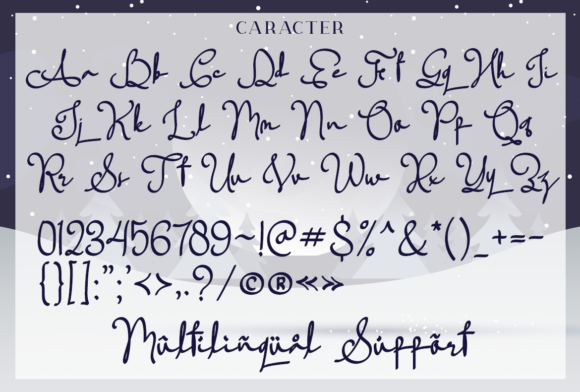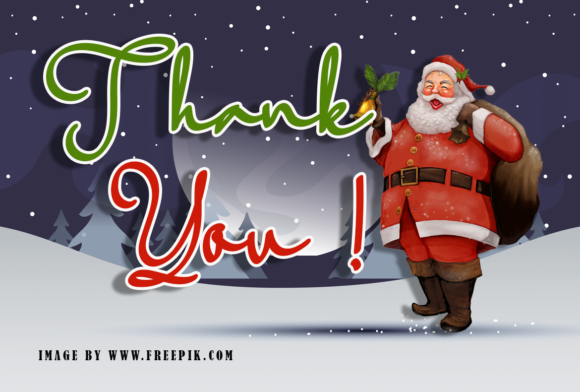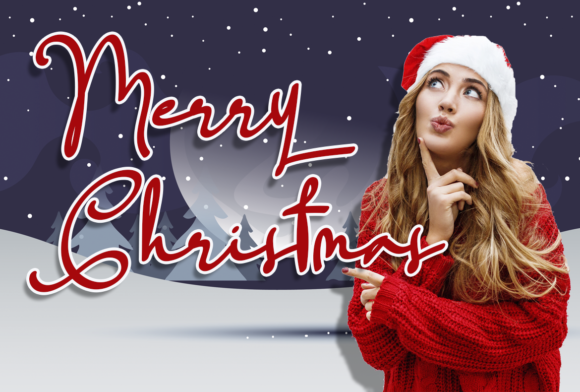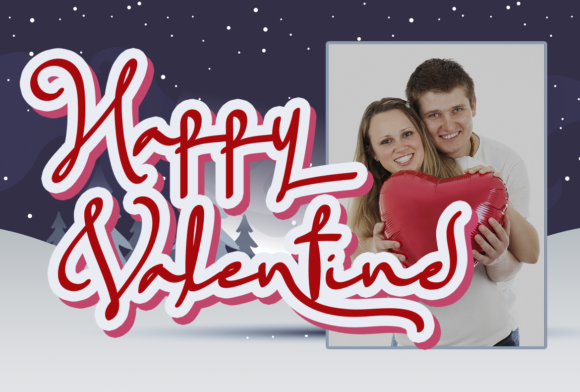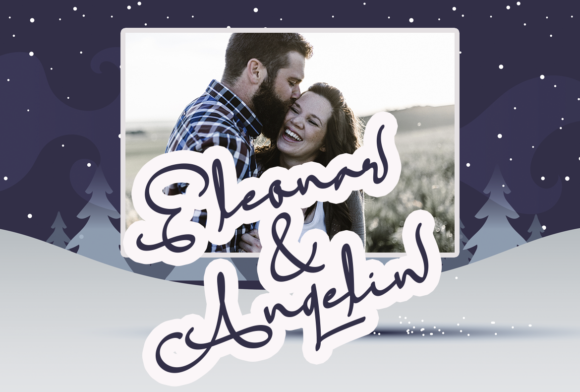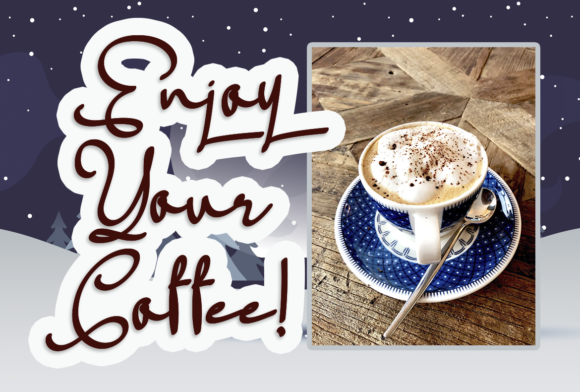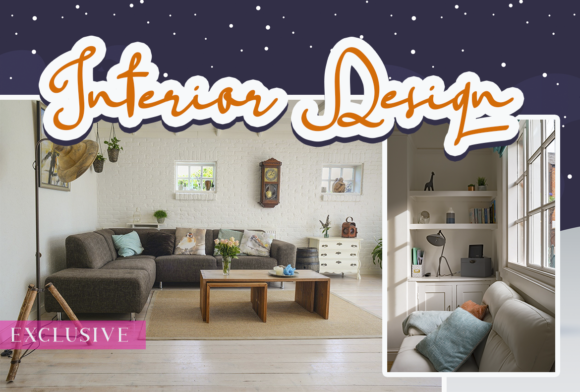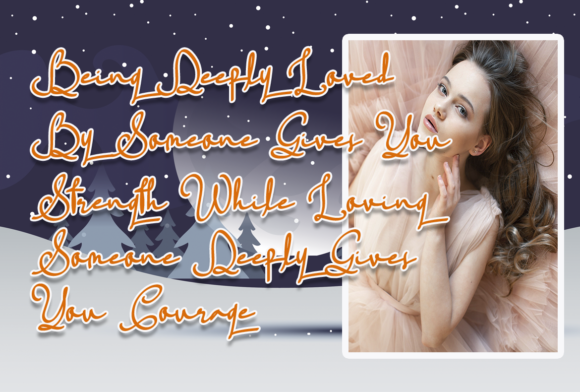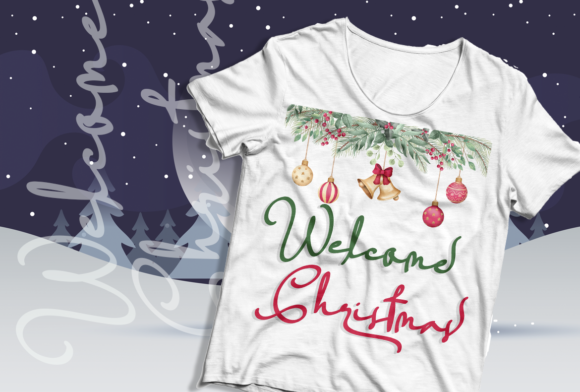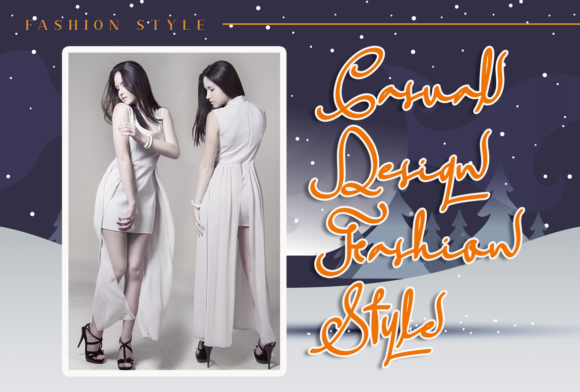
Father Christmas Font
About Father Christmas Font
Father Christmas is an elegant script font that exudes a delicate and classy aesthetic. With its balanced and varied letterforms, this font adds a touch of sophistication and beauty to your projects without being too thin or too thick.
The delicate strokes and graceful curves of Father Christmas give it a refined and elegant appearance. Each letter is meticulously designed to maintain a harmonious balance between elegance and legibility, allowing your message to shine through in a stylish and sophisticated manner.
This font’s versatility allows it to enhance the beauty of a wide range of projects. Whether you’re designing holiday greetings, invitations, branding materials, or any other creative endeavor, Father Christmas adds a touch of elegance that elevates the overall aesthetic.
The balanced and varied nature of Father Christmas ensures that each character has its own unique charm. This adds visual interest and keeps your designs captivating, whether used for headings, titles, or other prominent elements in your projects.
By incorporating Father Christmas into your designs, you can create a sense of timeless beauty and sophistication. It evokes a classic and refined feel that can elevate the visual impact of your projects, making them more memorable and engaging.
Whether you’re designing holiday-themed materials, elegant invitations, or any other project that calls for a delicate and classy look, Father Christmas is a font that will enhance the overall beauty and elegance of your designs.
In summary, Father Christmas is an elegant script font that combines delicate and classy elements to enhance the beauty of your projects. Its balanced and varied letterforms bring a sense of sophistication and refinement to your designs, making it a versatile choice for various creative endeavors. Embrace the timeless beauty of Father Christmas and let it add a touch of elegance to your next project.